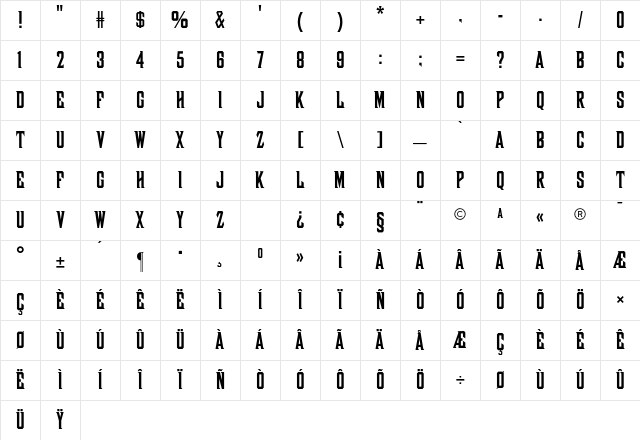
Complete Wood Block CG Regular glyph index. Displaying only characters natively supported by Wood Block CG Regular font.
Wood Block CG echoes the hand-painted signage and woodblock typography of the American frontier, with a warm, rugged personality.
Font Pairing: Combine Wood Block CG with a simple slab or neutral sans - period-accurate companions reinforce the vintage feel without competing for attention.
Pro Tip: Use Wood Block CG for short, impactful bursts of text - it shines in poster headlines and product names rather than extended copy.